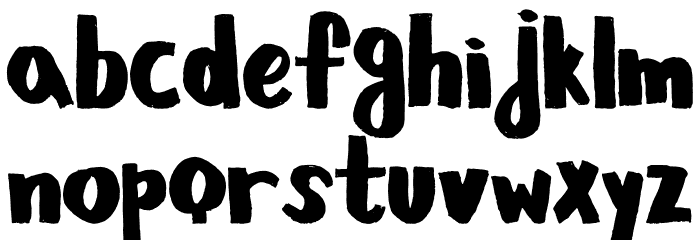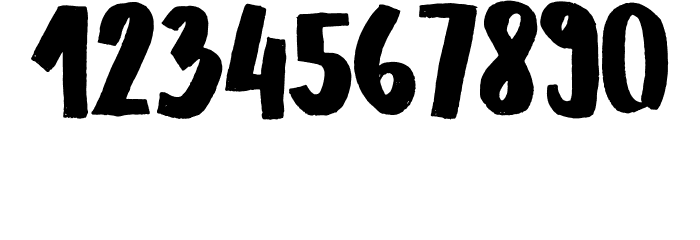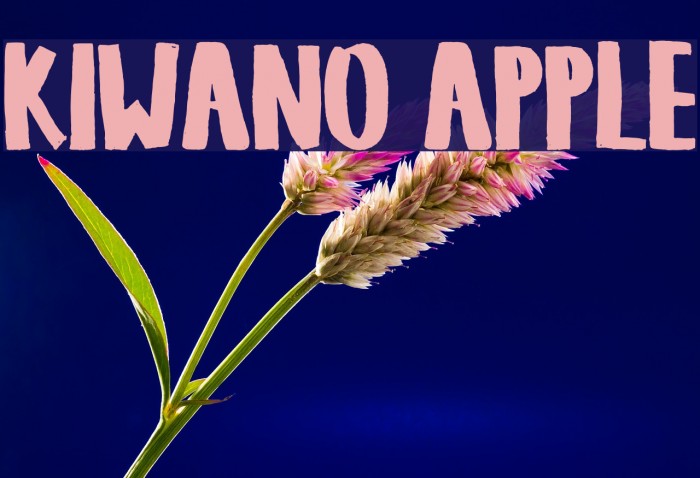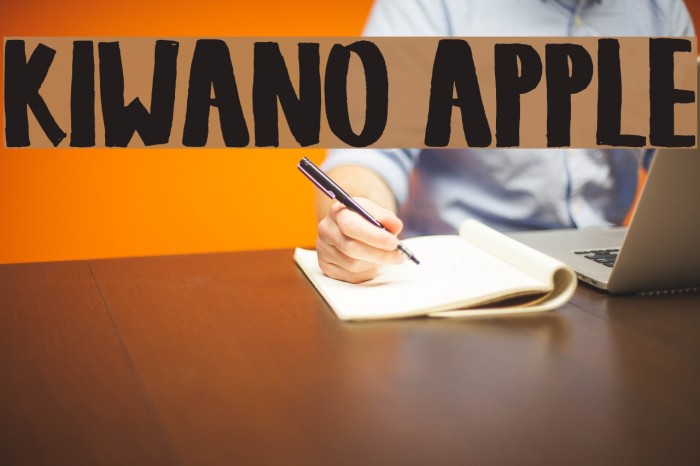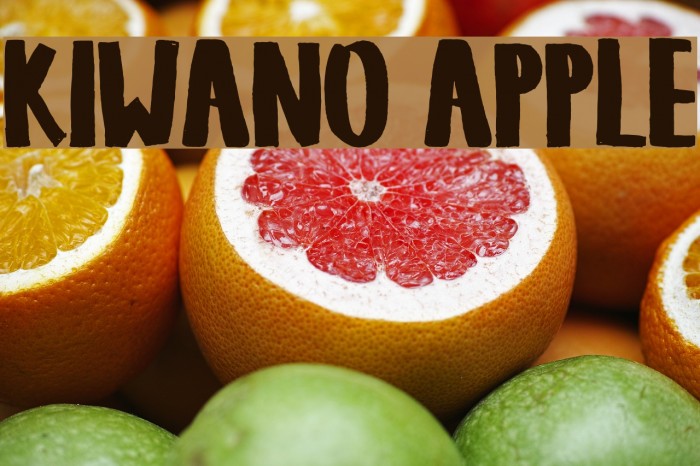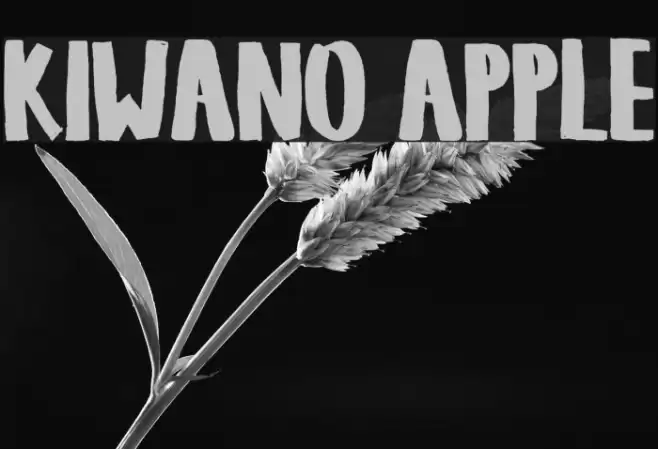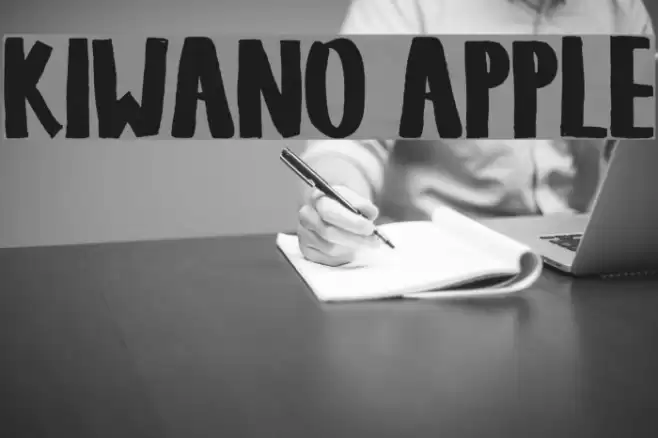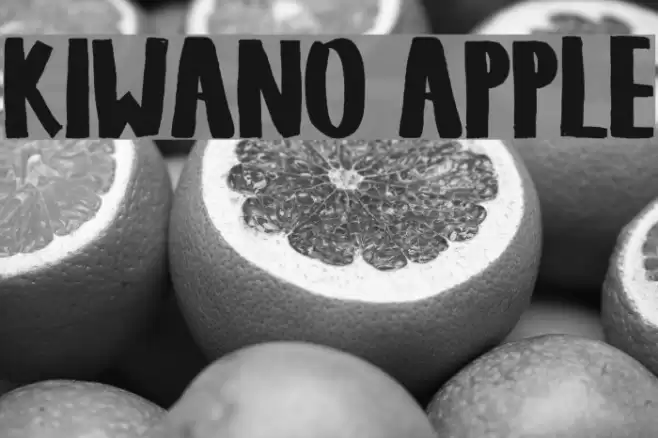
KIWANO APPLE Font
This font features a bold and playful style with a hand-drawn appearance. The characters are thick and slightly irregular, giving them a casual and artistic feel. The uppercase letters are robust and dynamic, while the lowercase letters maintain a consistent flow with unique quirks in their shapes. The numbers are bold and match the overall aesthetic, making them stand out. The special characters are creatively integrated, maintaining the font's cohesive look. This font is ideal for projects that require a fun and engaging visual impact.
A bold, playful, hand-drawn font with a casual and artistic style.
- Proposed Projects: Ideal for children's books, playful branding, posters, and creative social media graphics.